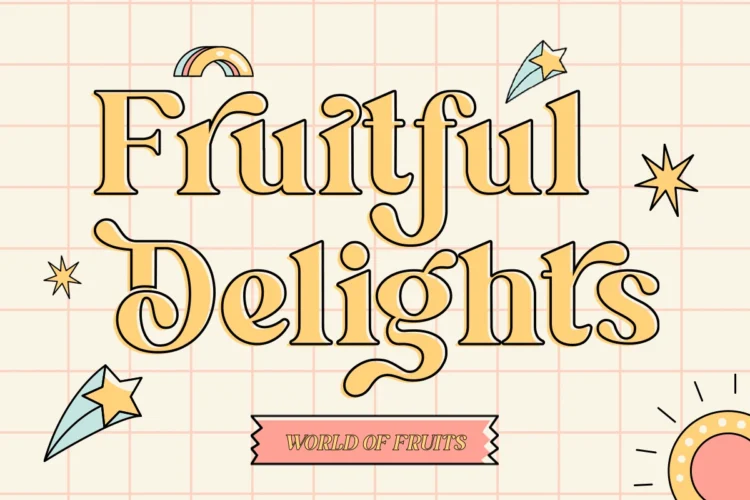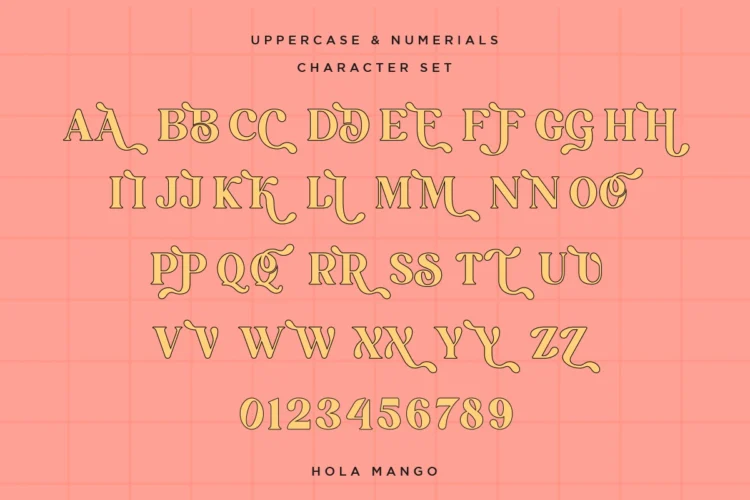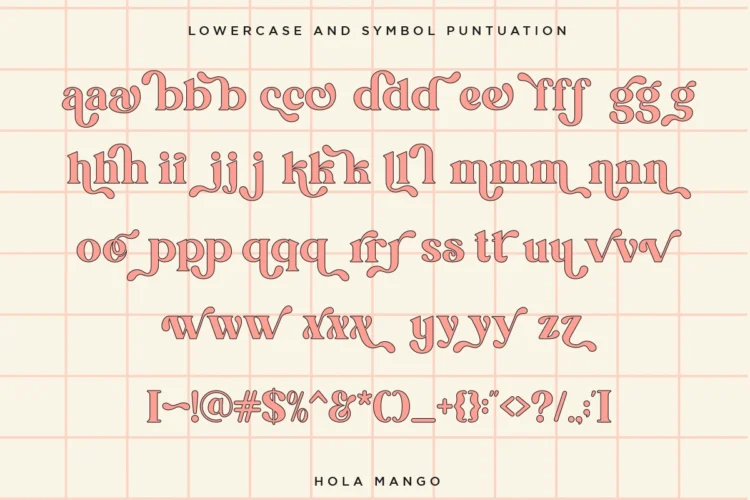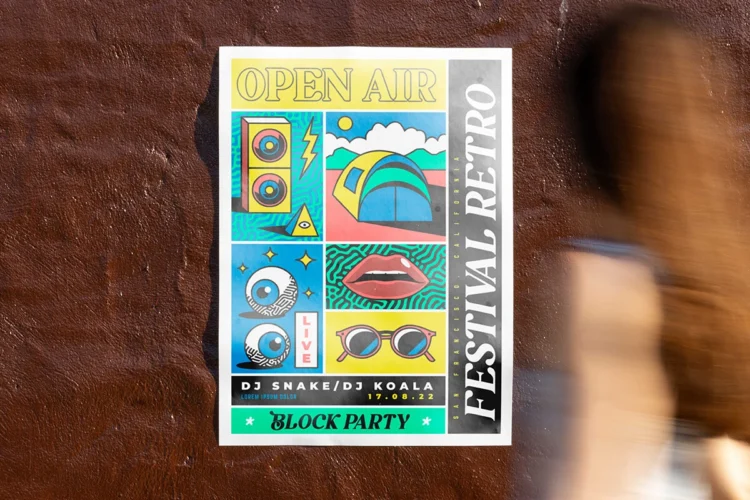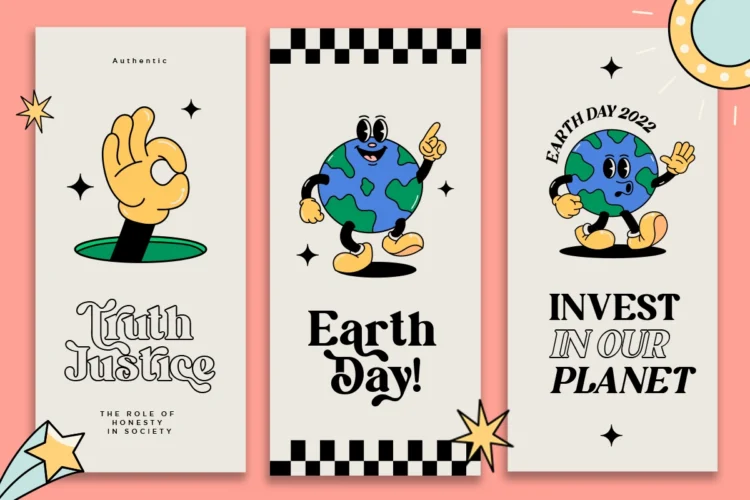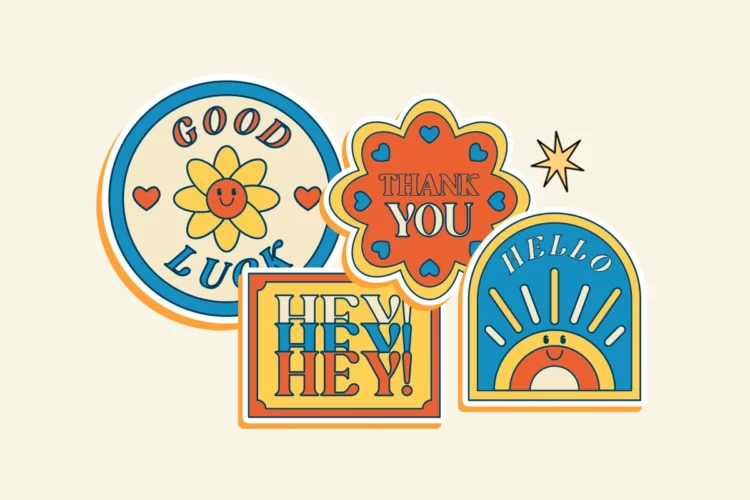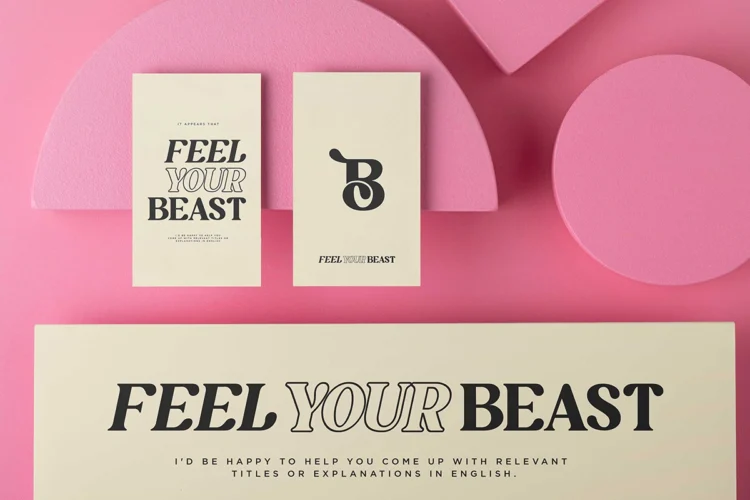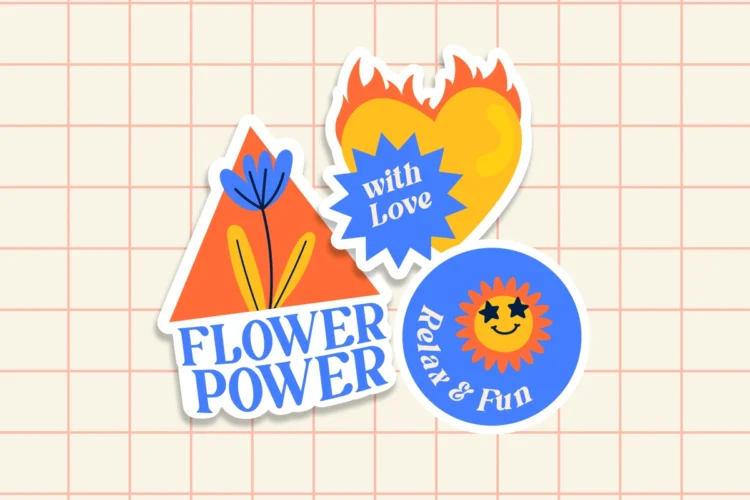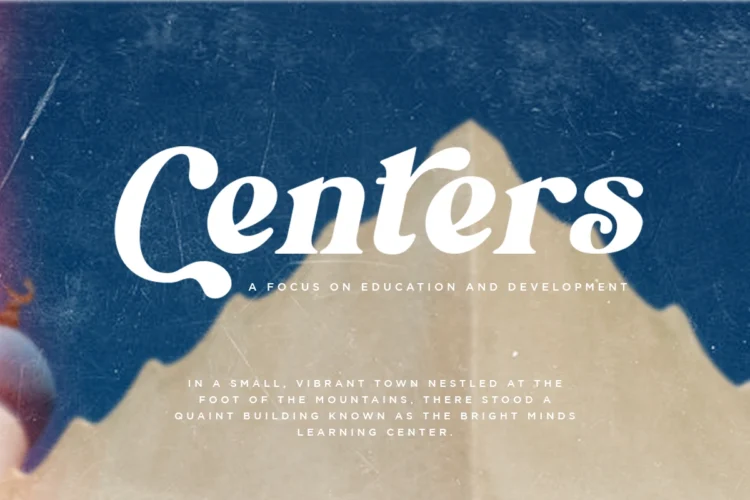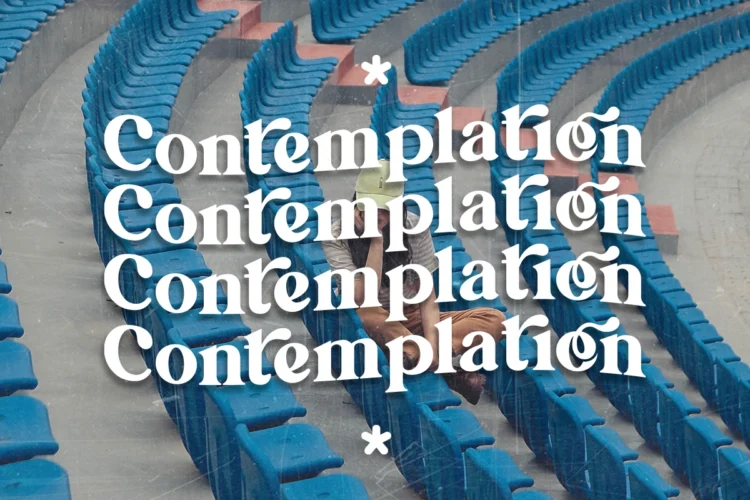
Hola Mango – Display Font
Introducing “Hola Mango” – A brand new “two-faced” bold serif with both modern and vintage curves.
A Two-faced beauty : Modern or Vintage
If you are going Vintage Retro : Access your OpenType features to access the large selection of alternate letters and ligatures, select the letters you like from the large variety to get the vintage look you are after. Vary between a light and heavy vintage look based on how many letters you alter.
If you are going Modern Chic : Just type with regular letters 🙂 Play with your letter spacing to add even more class to your designs.
Due to its split personality , Hola Mango is a very versatile font, which is available in 4 styles: regular, italic, outline, italic outlinecovering a wide range project types, from bold magazine imagery , to wedding invitations, to branding, poster design and so much more.